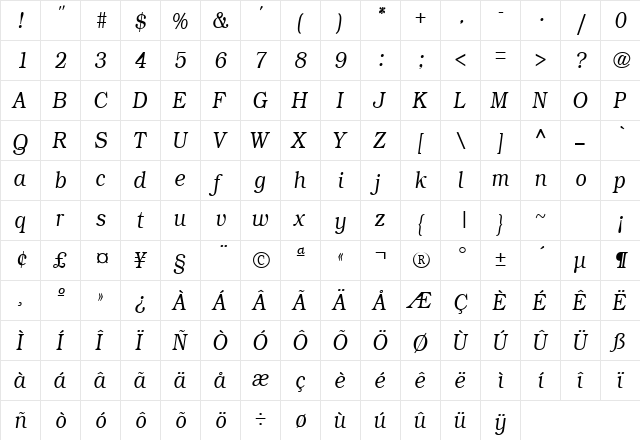
BookmanLigItalCond Regular
Design Context for BookmanLigItalCond Typeface
BookmanLigItalCond takes a measured approach to typography — its balanced proportions and neutral character make it a reliable workhorse for both digital and print work. Its narrow stance lets it pack a punch even in space-constrained designs.